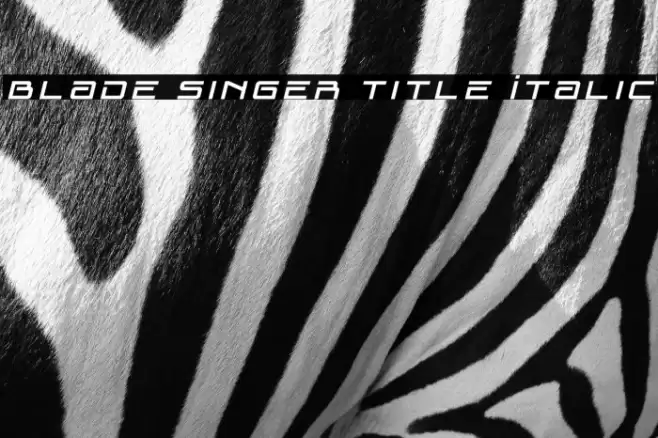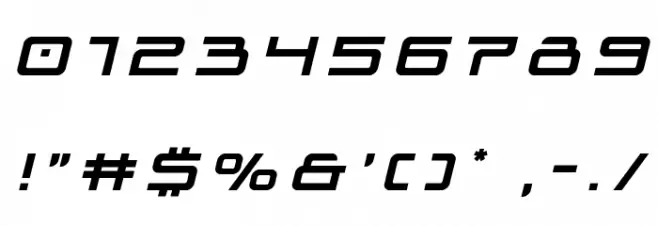
Blade Singer Title Italic Font
Blade Singer Title Italic Description
This font features a modern, angular design with a futuristic flair. The characters are slightly italicized, giving them a dynamic and forward-leaning appearance. The uppercase and lowercase letters maintain a consistent geometric style, with sharp edges and clean lines. The numerals and special characters follow the same design principles, ensuring uniformity across all glyphs. The font's overall aesthetic is sleek and contemporary, making it suitable for projects that require a cutting-edge look.
A modern, angular italic font with a futuristic design from Uncategorized fonts.
- Proposed Projects: Ideal for technology branding, sci-fi themed projects, video game titles, and modern advertising campaigns.
- Use Case: Headlines, Logos, Branding